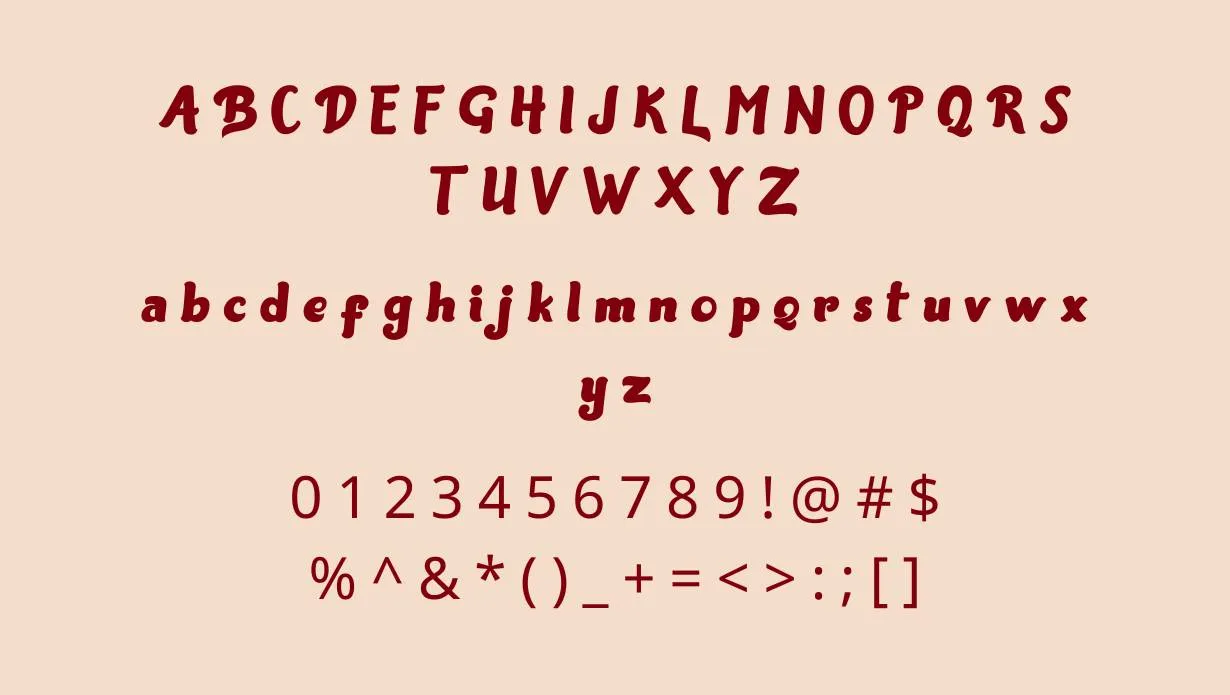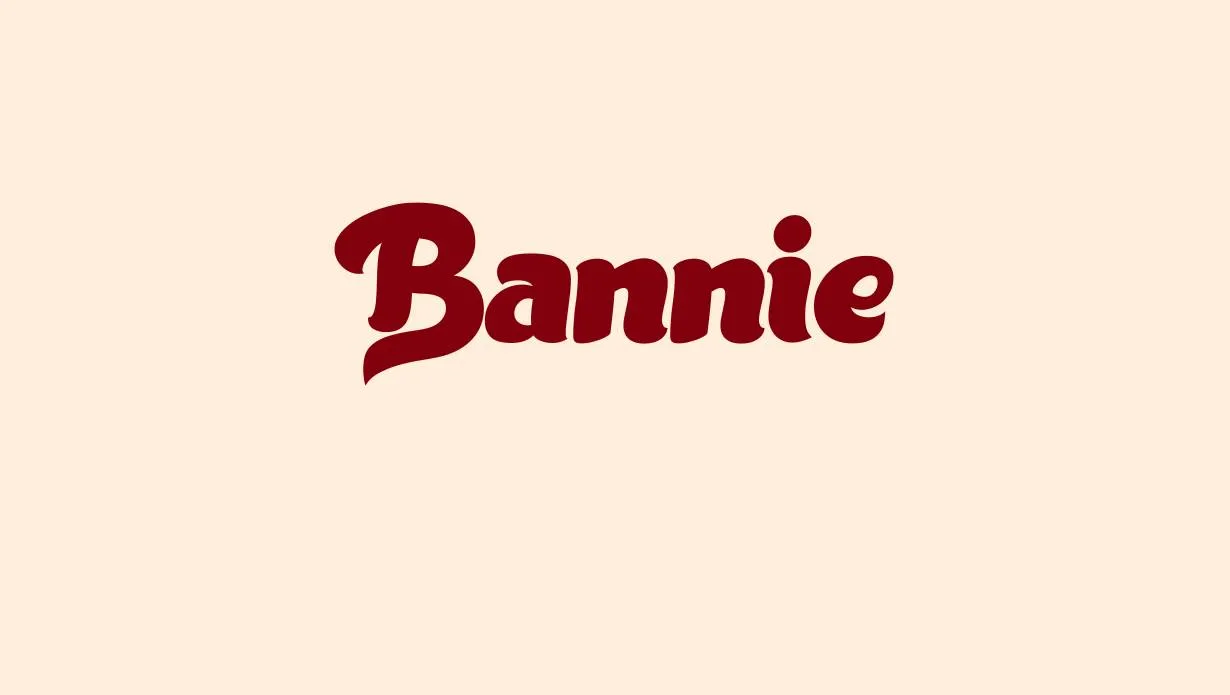
Bannie Font Free Download
About Bannie Font Free Download
Bannie is a lively, hand‑drawn script typeface that blends playful, casual strokes with a bold visual presence. Its handcrafted letterforms give designs a personal and expressive character, making it well suited for invitations, posters, social media graphics, branding, and creative displays. The font’s dynamic shapes and energetic style add warmth and personality to both digital and print applications. Bannie’s distinctive charm helps elevate headlines and decorative text with a friendly, handcrafted look.